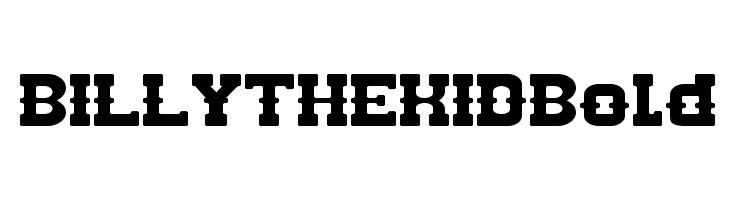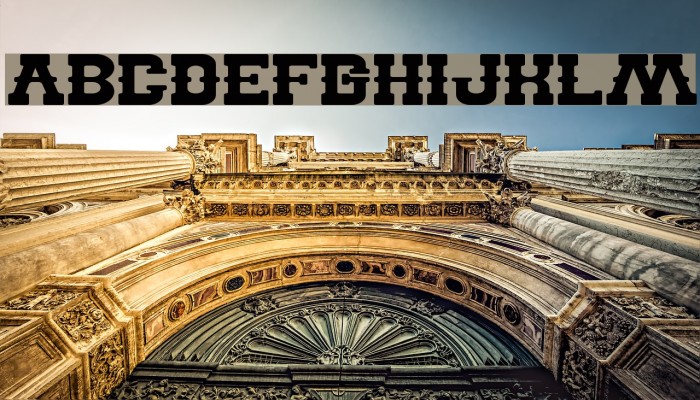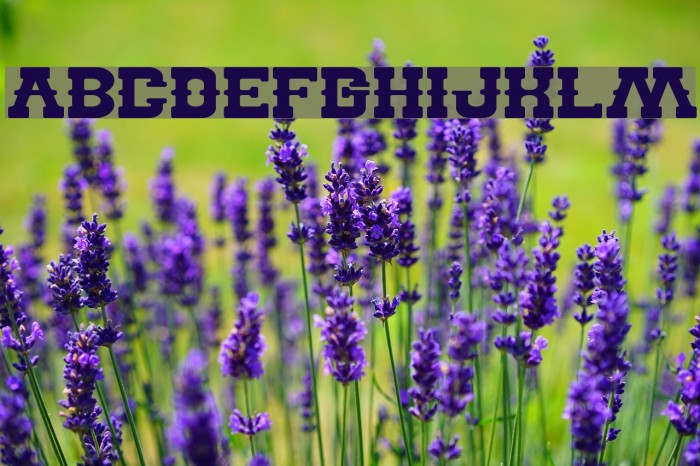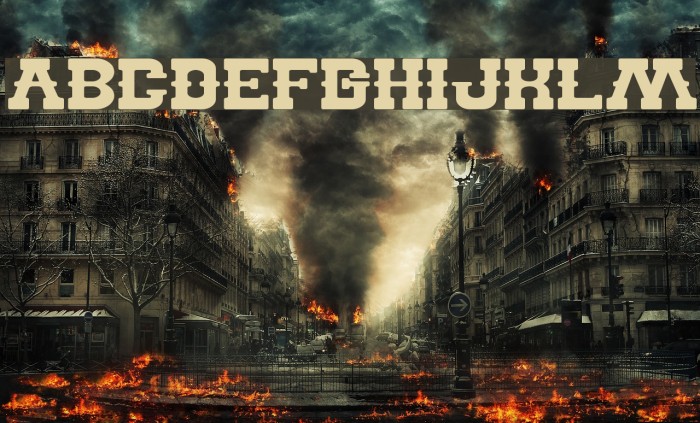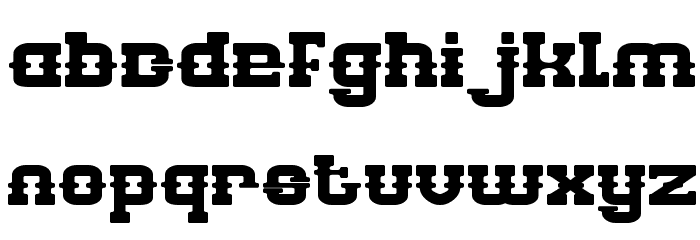
BILLY THE KID Bold Font
This font features a bold, slab serif style with a distinctly Western flair, reminiscent of classic wanted posters and cowboy themes. The characters are robust and sturdy, with thick strokes and minimal contrast, providing a strong and impactful appearance. The serifs are prominent and blocky, adding to the rugged aesthetic. The uppercase and lowercase letters maintain a consistent weight, ensuring readability while conveying a sense of strength and boldness. The numbers and special characters are equally bold, making them suitable for attention-grabbing designs.
A bold, slab serif font with a Western, rugged style.
• Proposed Projects: Ideal for Western-themed posters, branding, signage, and any design requiring a bold, impactful look.
• Category: Slab Serif
• Contrast: Low
• Overall Style: Vintage
• Use Case: Headlines, Logos, Posters